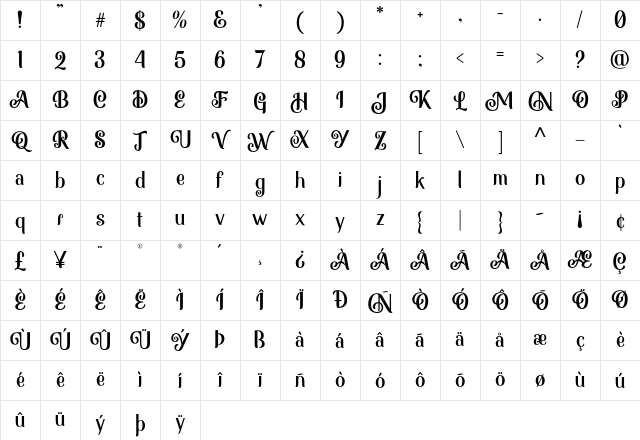
Monabelia is a composed and adaptable typeface that performs quietly and consistently across a wide range of design contexts.
Pro Tip: Use Monabelia in both headline and body roles to test its range before committing to a single application.